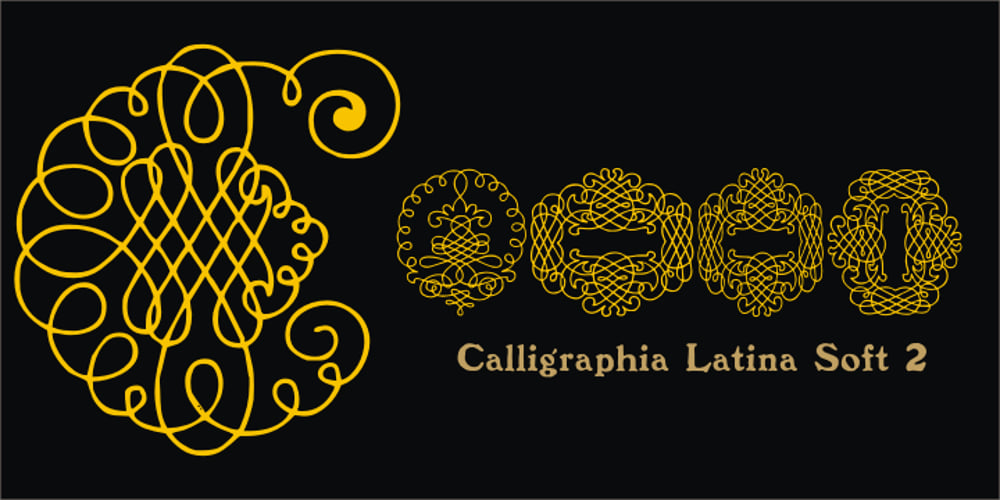
Calligraphia Latina Soft 2 Font Family was designed by Paulo W and published by Intellecta Design. Calligraphia Latina Soft 2 contains 1 styles and family package options. One of the most successful ornament fonts is CalligraphiaLatina. It is part of a trend that’s been quite popular lately: messed-up calligraphy. CalligraphiaLatina is a worldwide best-seller from IntellectaDesign.. Besides the original CalligraphiaLatina, its family of fonts (13 different sets) represents a complete solution of intrincated fleurons and ornaments to use with several styles of artworks.